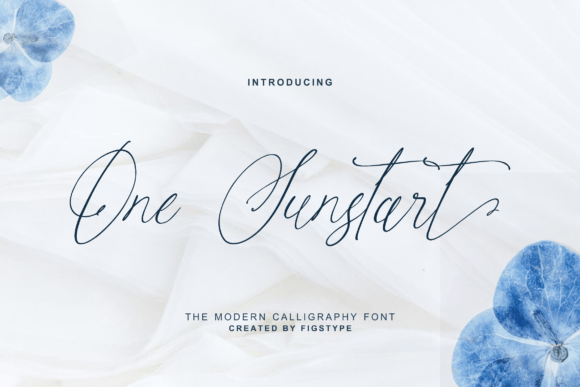
Prepare to be mesmerized by One Sunstart Font, a script font family that embodies elegance and grace. Its beautiful curves and delicate strokes evoke a sense of nostalgia, transporting you to a bygone era of classic literature and timeless correspondence.
With One Sunstart Font, your designs will radiate sophistication. Whether crafting wedding invitations, handwritten letters, or heartfelt quotes, this font adds a touch of refinement and charm that captivates the senses. Its PUA encoding ensures effortless access to a treasure trove of delightful glyphs and swashes, allowing you to unleash your creativity and add a personal touch to every project.
Step into the world of One Sunstart Font, where the written word becomes art. Experience the joy of crafting messages that resonate with warmth and elegance. Let your words dance across the page, leaving an unforgettable impression that lingers in the hearts and minds of your readers.